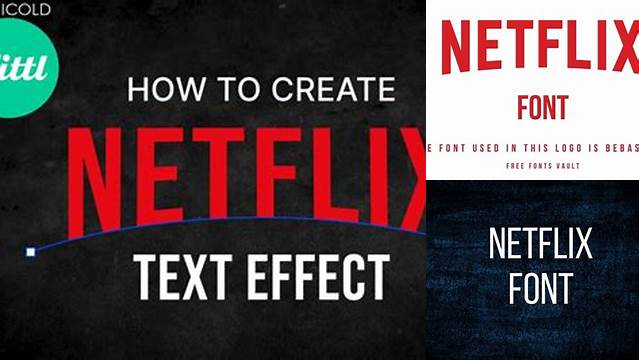
Free Netflix Fonts: Your Guide To Typography
Free Fonts for Netflix: Your Ultimate Guide to Typography
Are you a fan of Netflix? Do you love the shows, the movies, and everything in between? Well, if you're also a typography enthusiast, you've probably wondered about the free fonts Netflix uses. It's a fascinating world, filled with design choices that shape how we perceive the brand and its content. This article dives deep into the realm of Netflix fonts, exploring the specific typefaces used, where to find similar free alternatives, and how you can incorporate these styles into your own projects. So, let's get started, guys!
Discovering the Official Netflix Fonts
When we talk about free fonts Netflix utilizes, it's important to first understand the official typefaces they employ. While you might not be able to download these exact fonts for free (as they are often custom-designed or licensed), knowing their names and characteristics is crucial for finding comparable alternatives. Netflix has a distinct visual identity, and fonts play a massive role in that. They aren't just about readability; they are about conveying a certain mood, tone, and brand personality. Think about the Netflix logo itself. It’s instantly recognizable, thanks to the font choices. The streaming giant uses a mix of fonts, often a custom version.
For the primary branding, Netflix employs a custom typeface, but there are some well-known fonts that it frequently uses for its marketing materials and on-screen text. This is where your search for free fonts Netflix alternatives comes into play. Recognizing these styles helps you hunt for similar fonts. The Netflix logo, for instance, uses a specific font that gives a sleek, modern look. This custom font ensures brand consistency across all platforms, from your smart TV to your smartphone. The font conveys modernity, professionalism, and a touch of playfulness, a combination that resonates with a broad audience. If you're trying to recreate the Netflix aesthetic, focusing on these font characteristics is a great starting point. Identifying the font is the first step towards finding free fonts Netflix style. Understanding the design principles behind the font choices will help you pick the perfect alternative. The custom fonts help build brand recognition. Remember that the font choices extend beyond the logo; they are used in titles, subtitles, and other textual elements, shaping the entire viewing experience. The fonts contribute to the overall brand experience.
Finding Free Alternatives to Netflix Fonts
So, you want to find free fonts Netflix equivalents, right? Cool! The good news is that there are plenty of free font options out there that capture the spirit and style of the fonts used by Netflix. The internet is your playground. Many websites offer vast collections of free fonts, making it easier than ever to find a typeface that fits your project. However, it is essential to differentiate between the official Netflix fonts and the alternatives. Don't worry; finding the perfect font isn't as complicated as it sounds. The main characteristics of the fonts, such as their weight, style, and overall appearance, are the keys to the puzzle. If you're unsure where to start, try searching for fonts with similar characteristics to the Netflix logo. These fonts will often have a clean, modern look that aligns with the streaming service's aesthetic. Several websites are dedicated to providing free fonts that are perfect for your needs.
When looking for free fonts Netflix substitutes, think about the style. You can search for fonts with similar characteristics. The typefaces used by Netflix are often sans-serif, with clean lines and a modern aesthetic. Consider the weight and style, are they bold, regular, or italic? This can make a big difference. Websites like Google Fonts and DaFont are great places to start. Google Fonts offers a wide array of free, open-source fonts that you can use for any project. DaFont is another popular site with a vast library of fonts, many of which are available for free. Consider the font's intended use. Will it be used for headlines, body text, or both? This will help you narrow down your search. Remember to check the licensing of any font you download to ensure it is free for your intended use. Some fonts may be free for personal use but require a license for commercial purposes. Look for fonts that offer a variety of weights and styles. If you want to mimic the Netflix aesthetic, you'll want a font family that offers different options for titles, subheadings, and body text. Websites that offer filters make it easy to find fonts that align with your criteria.
Utilizing Free Netflix-Style Fonts in Your Projects
- Google Fonts: Google Fonts is a treasure trove of free, open-source fonts. This is one of the most popular and reliable sources for finding fonts. With its user-friendly interface and vast library, it’s a great place to start your search for Netflix-inspired fonts. You can browse by category, style, and other characteristics.
- DaFont: DaFont is another excellent resource. This website offers a massive collection of fonts, categorized by style, theme, and designer. You can find a great variety of fonts here, including many that closely resemble the Netflix aesthetic. Be sure to check the licensing information for each font.
- Font Squirrel: Font Squirrel is a well-curated font library with a focus on high-quality, free fonts. The site offers a curated selection of fonts. They have a great selection of fonts, with many options that are suitable for Netflix-inspired designs.
These are just a few of the many resources available. Always double-check the licensing terms to ensure you can use the font for your intended purpose. These sites offer a variety of font styles.
Understanding Font Licensing and Usage Rights
When you start working with free fonts Netflix, you will soon find out that not all free fonts are the same. Understanding font licensing is essential to avoid any legal issues. The licensing of fonts defines how you can use them. Licensing determines the rights and restrictions associated with a particular font. Before using any free font, always check its licensing terms.